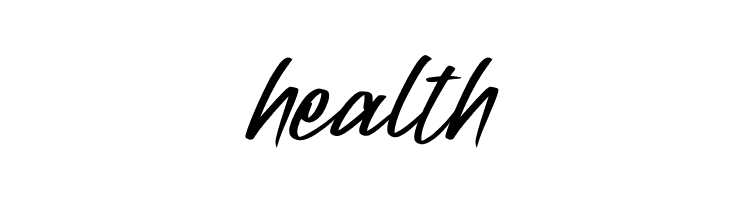
A modern, thin-line font with geometric precision and minimalist elegance.
A modern, italic font with clean lines and balanced proportions.
Decorative icon-based font with playful, outlined numerals.
A pixelated, retro-style font with a geometric, grid-like design.
A bold, italic, futuristic font with angular, geometric characters.
A playful, bubble-like font with rounded, consistent outlines.
Hand-drawn dingbat font with playful child illustrations.
A bold, italic font with a dynamic and elegant style.
Invalid or unsupported font with placeholder symbols.
A playful font with cactus illustrations integrated into each character, offering a whimsical and decorative style.